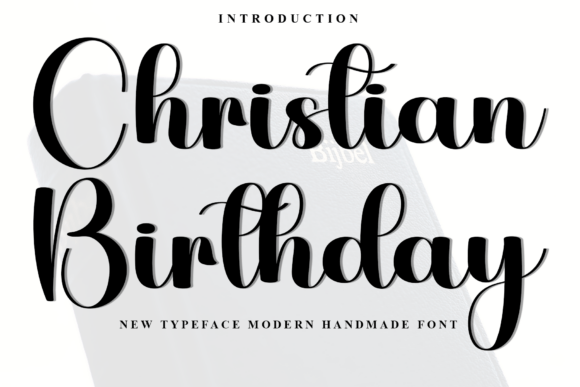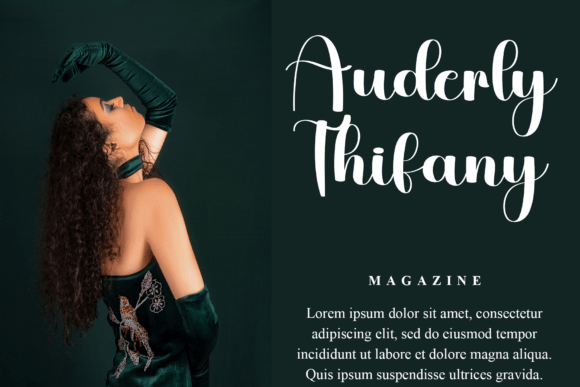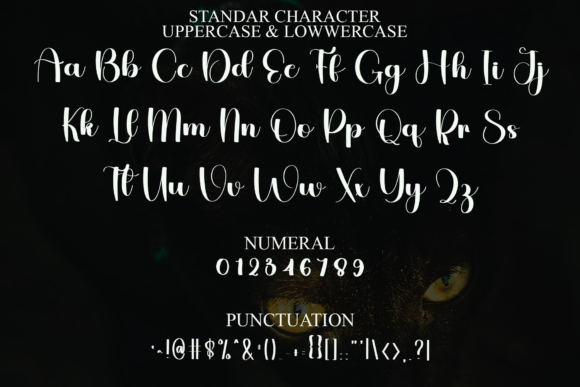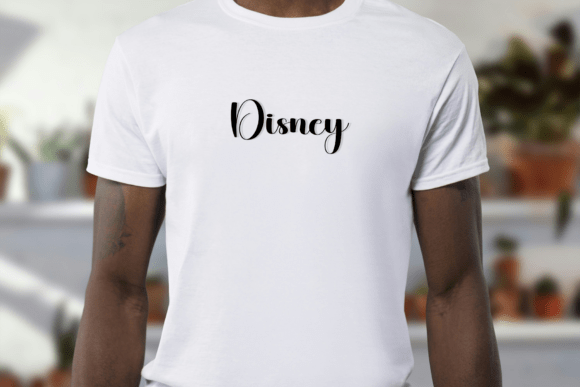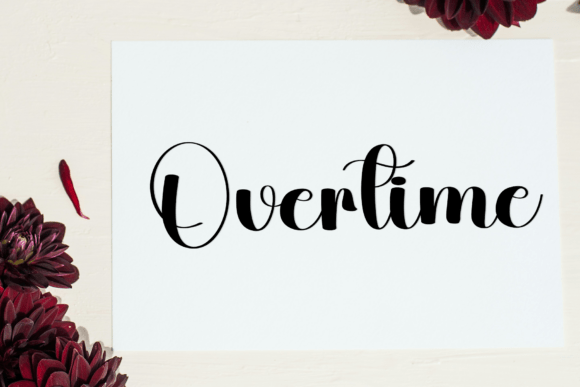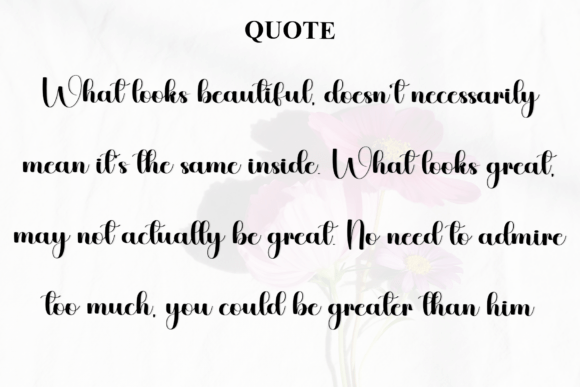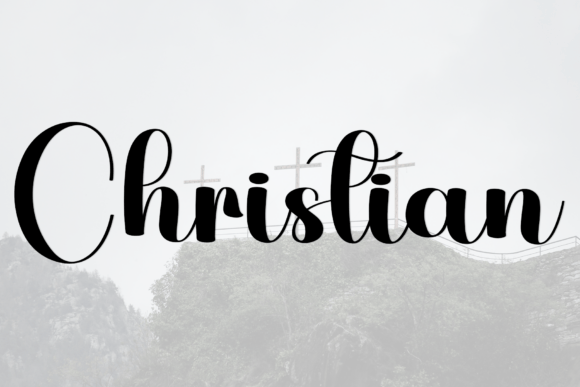
Creating Joyful Celebrations with the Christian Birthday Font
Have you ever stumbled upon the perfect font to capture the essence of a birthday celebration? The moment you see it, you know exactly how you want your design to look – playful, friendly, and full of joy. That’s exactly what the Christian Birthday Font brings to the table – a casual and creative typeface that exudes warmth and friendliness.
Whether you’re designing a birthday invitation, a social media graphic, or a personal project, the Christian Birthday Font is the perfect addition to your toolkit. Its round, playful strokes create a relaxed and approachable feel that’s sure to delight your audience. And with standard PUA Encoded glyphs, you can easily use it in a variety of application engines, including Adobe Photoshop, Corel, and Adobe Illustrator.
Key Features of Christian Birthday Font
- Unique Characteristics: The Christian Birthday Font features a custom-designed script with a mix of bold and cursive elements, making it ideal for birthday cards and other celebratory designs.
Christian Birthday Font Review
Overall, the Christian Birthday Font is a unique and thoughtful choice for anyone celebrating a birthday with a Christian twist. ✨ It’s clear that the designer aimed to create a font that not only conveys a sense of celebration but also subtly reflects the importance of faith in the occasion.
The font’s design is clean and easy to read, making it suitable for various applications such as birthday invitations, cards, and even social media posts. ✨ The font’s aesthetic is modern yet traditional, which should appeal to a wide range of users.
- ⚠️ The font may not be suitable for all Christian denominations, as the design seems to lean towards a specific branch of the faith.
- ⚠️ The font’s versatility is limited, as it may not be the best choice for formal or professional documents.
- ⚠️ The font’s size and complexity may make it difficult to use for small text or intricate designs.
Overall, the Christian Birthday Font is a charming and thoughtful choice for those celebrating a Christian birthday. While it may have some limitations, it’s a great option for those looking for a unique and faith-inspired design.
Tips for Getting the Most Out of the Christian Birthday Font
Use the Christian Birthday Font in a variety of design contexts, such as birthday cards, invitations, and social media graphics.
Combine the font with other design elements, such as images and shapes, to create a visually appealing and engaging design.
Experiment with different font sizes, colors, and styles to add depth and interest to your design.
Birthday cards and invitations
Social media graphics and posts
Church bulletins and announcements
Personalized gifts and decorations